Big and bold typography is an absolute classic of website design. It is a timeless, old-school stylistic option that works like a Swiss watch, regardless of the environment that surrounds it. It is one of those solutions that everyone can rely on. Even though it does not have an element of surprise like many voguish techno extravaganzas have, yet it still has a wow factor that can win over even the toughest audience. Besides, it is back in fashion again.
An overwhelming size and enormous weight are two main characteristic traits that define big and bold typography of these days. As a rule, web designers prefer to stick to neutral, formal type families. However, there are cases when decorative scripts are involved as well. In this collection, let us consider a dozen exciting website designs to see how the trend manifests itself and benefits web projects today.
Outstanding Examples of Big and Bold Typography
Oust
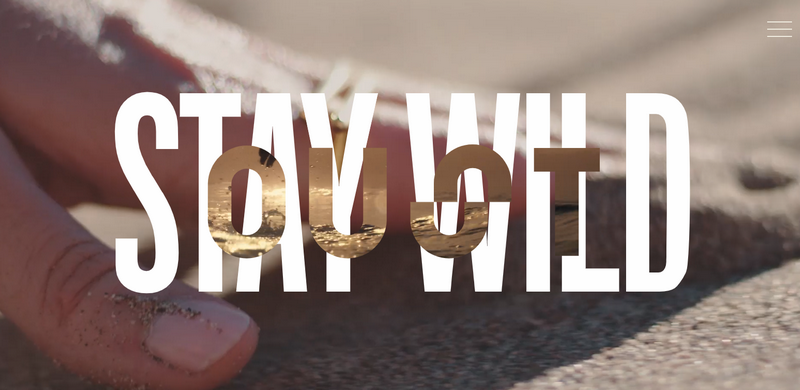
Oust is a creative agency that skillfully embraces the power of this trend. The team has taken it to the next level with some smart tricks.
The hero area welcomes the audience with two huge lettering’s. The first one declares the catchy tagline occupying almost half of the screen and serving as a background for the second one. The latter states the brand name and plays a video inside. Note that the first one is static, whereas the second one is dynamic. This unique combination breathes new life into the concept as well as commands the attention right away when the user lands on the page.
Henriquez Partners
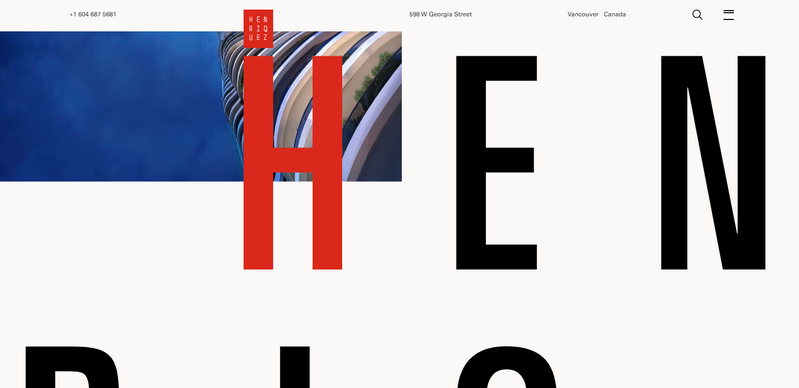
The Oust’s team sticks to the traditional route, and feature the big and bold typography in the hero area to boost the first impression. However, it does not mean that you cannot use and benefit from the trick somewhere else on the page. Take a look gander at the official website of Henriquez Partners where the concept does good right in the middle of a homepage.
The website has a welcome screen that radiates off a businesslike vibe right out of the gate. Nevertheless, it is neither boring nor banal. The team managed to add a piquancy to the experience by applying the trend in the third section. They have featured the name of the company forcing the brand identity to work for them. Also note that a simple sans-serif typeface has been involved again. It perfectly finishes off the robust, boxy aesthetics of the website.
Violin Rio Dance
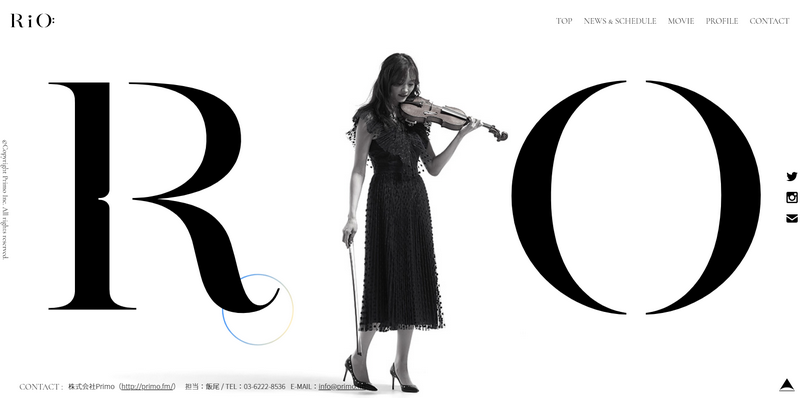
Big and bold typography can also be found in the footer. While it may seem a bit odd and illogical, yet this trick helps to strengthen the general impression and gives an extra zest to the user experience when nobody expects it.
In the case of Violin Rio Dance, it serves other functions as well. First, it duplicates the logotype, strengthening the visual identity. Second, it saves the footer from looking simplistic with its beautiful, elegant letter-forms. Finally, it features the woman behind the concert as part of the composition, adding a powerful human appeal to the project. Note that the solution feels incredibly exquisite, meeting the mood of the upcoming event.
Mav
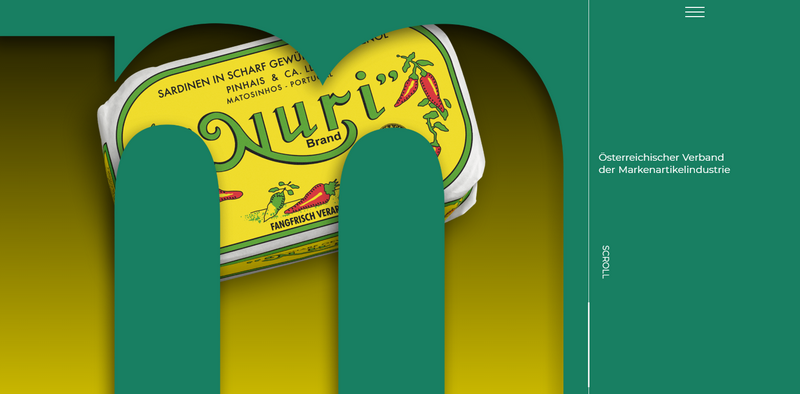
The team behind Mav shows us a perfect example where the old-school trick meets the modern one. Here, big and bold typography is used as part of an intricate slider. It is masked to reveal what is hidden inside and enriched with inner shadows to give the presentation a subtle feeling of depth. It takes up almost the entire screen, looking like a real star of the show.
Flocc
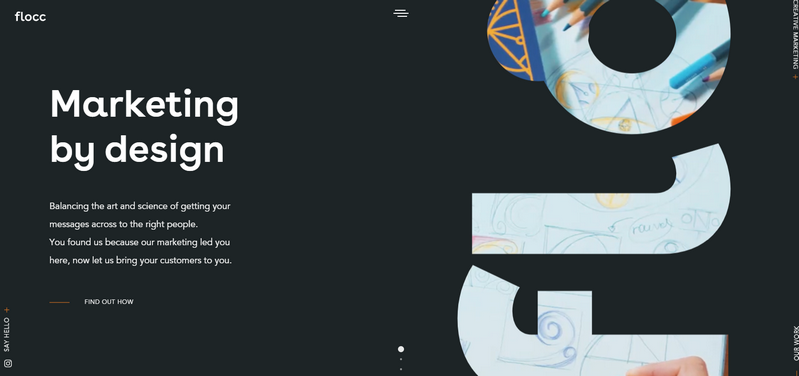
Big and bold typography looks extremely good when it’s used in tandem with vertical rhythm as well. These two effects make a good couple.
The creative team behind an official website of Flocc leverages the solution not only as a tool for displaying the company’s name but also as a decorative element of the hero area. Much like in the previous example, it is also masked. This time, it has a video background. But, there is even more: it is part of an interactive playground too. Move your mouse cursor closer to the lettering, and you will see the magic.
The team has come up with a perfect symbiosis of businesslike appeal and creative feel.
Big and Bold Typography with a Decorative Note
As we have mentioned earlier, even though we are blessed with a choice of hundreds of type families, the current trend of big and bold typography implies the utilization of neutral typefaces. However, no one stops you from pushing boundaries a little bit more and trying some fancy decorative options. Let us consider excellent examples of websites using this kind of design, too.
Paul Shtyler
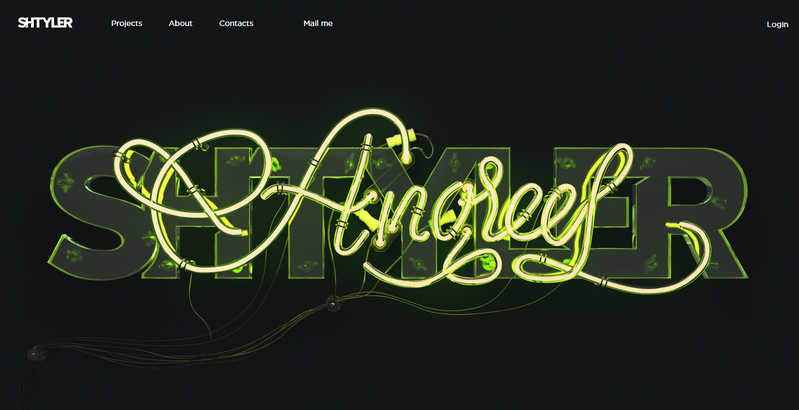
The personal portfolio of Paul Shtyler has not one, but two beautiful typefaces. However, they do not compete with each other. On the contrary, they perfectly co-work together, creating a compositional harmony. The first font has simple letterforms, yet it also makes use of glassy textures, which result in a fantastic design. The second one is a traditional script that was taken to the next level with the help of a highly realistic 3D realization. The idea is incredible.
Hack Wired
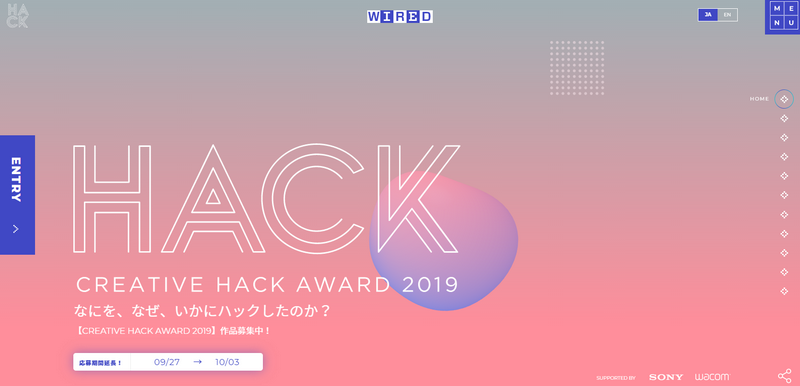
Although Hack Wired looks simpler than the previous example, it certainly feels more exquisite than designs based on regular sans serif typefaces. Here, you can see how the charisma of an elegant and refined line-style typography does magic. The word “HACK” instantly commands attention with its impeccable letter-forms. Moreover, it perfectly blends into the sophisticated design of the website.
EPFL
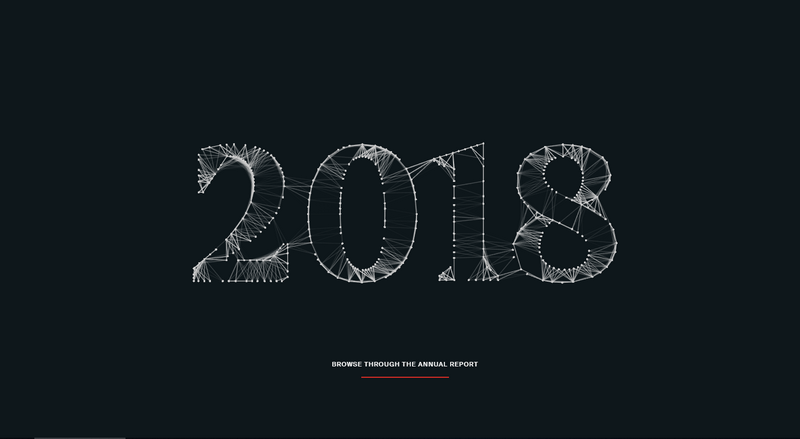
Much like the first example in this section, EPFL gets its beauty from the digitally reproduced typeface. Here, each character is constructed from hundreds of dots that are connected with ultra-thin lines. The “2018” looks outstanding. Note, it does not overpower the audience with its complex structure. On the contrary, thanks to the companion-less environment, it is just what the doctor ordered.
Conclusion
Although the trend of big and bold typography centers around the neutral sans-serif typefaces that sometimes feel a bit rustic, it still has its own merits. First, even though it does have a significant visual weight, it does not overpower the audience. Second, thanks to the absence of quirky details, it does not look schmaltzy and childish, serving as an excellent instrument for corporate websites. Finally, you can use the trend as a sound base for other experiments such as masking or interactive canvases, too.